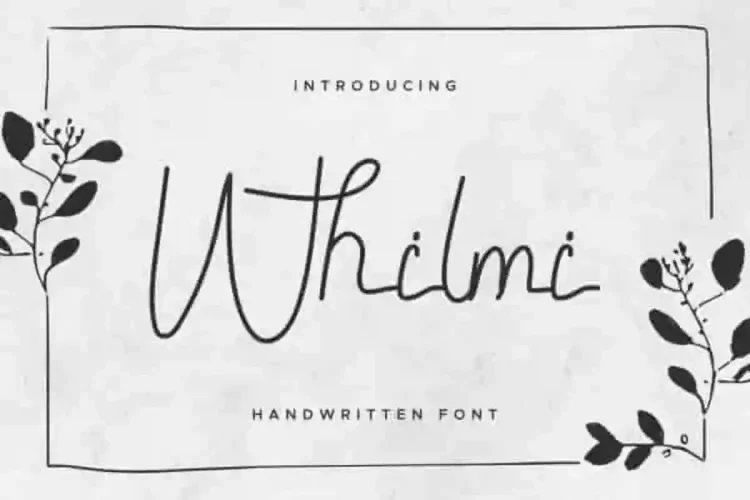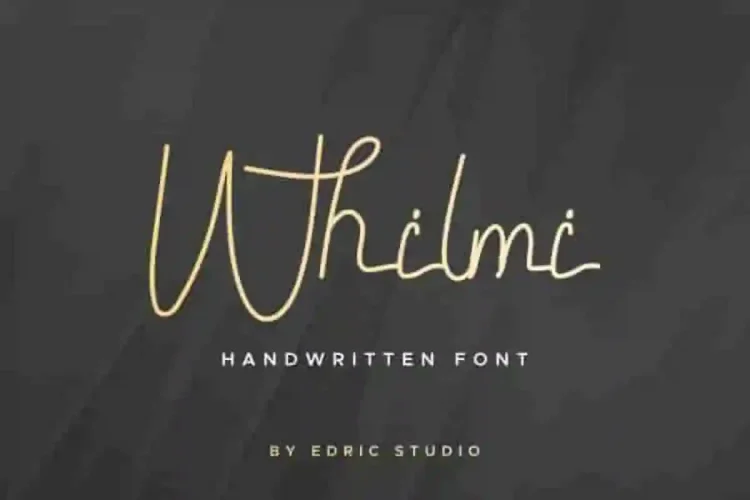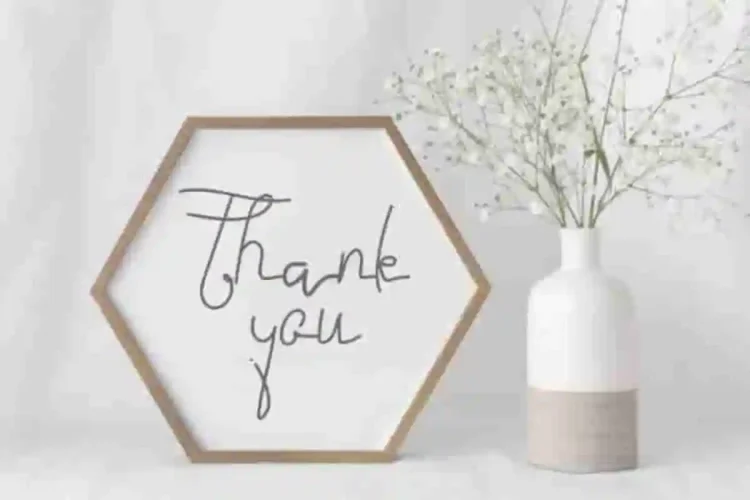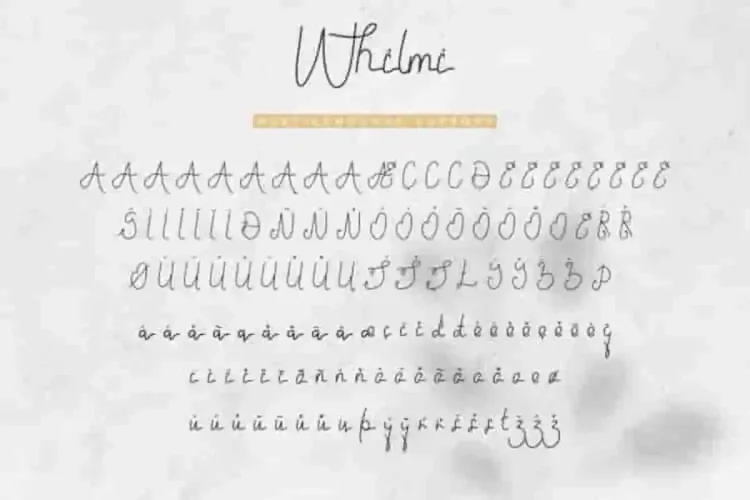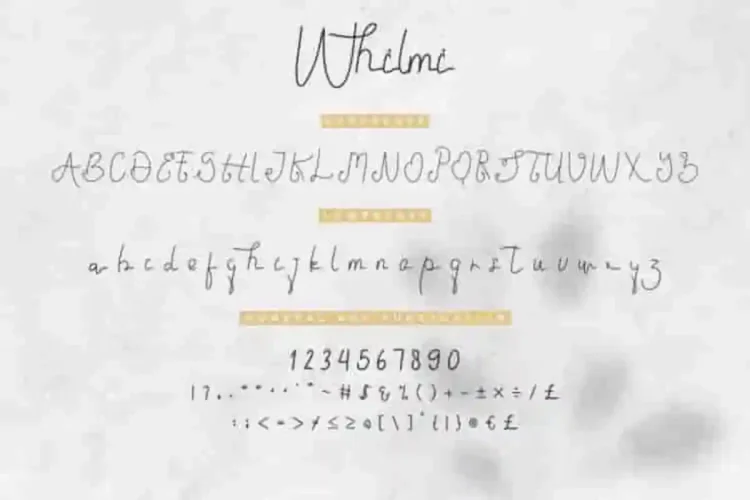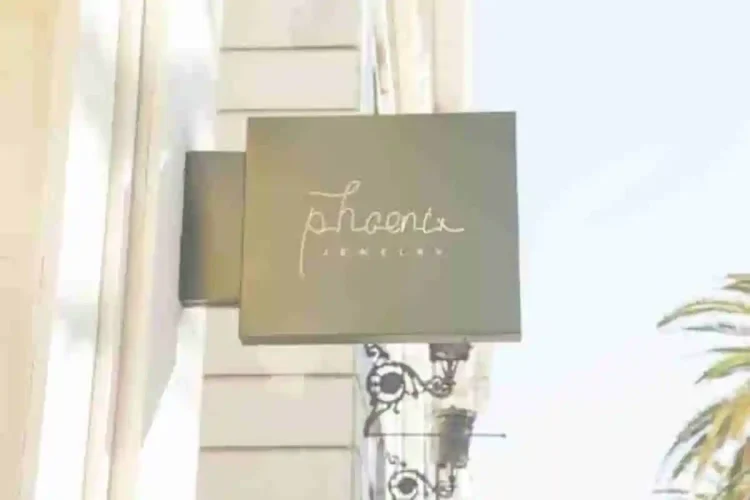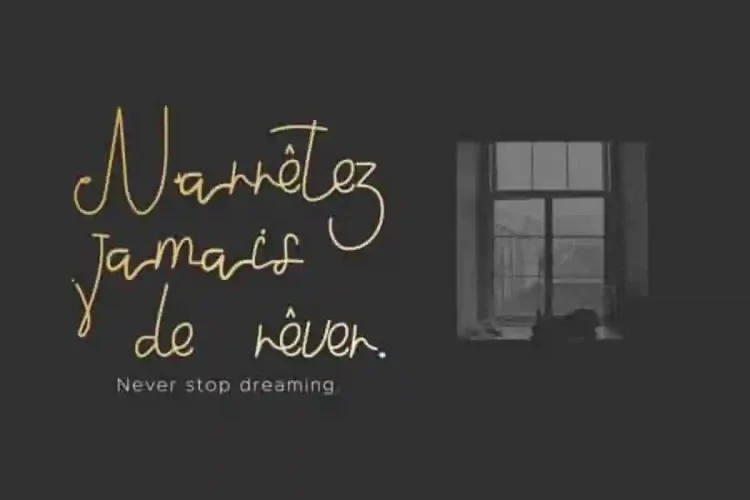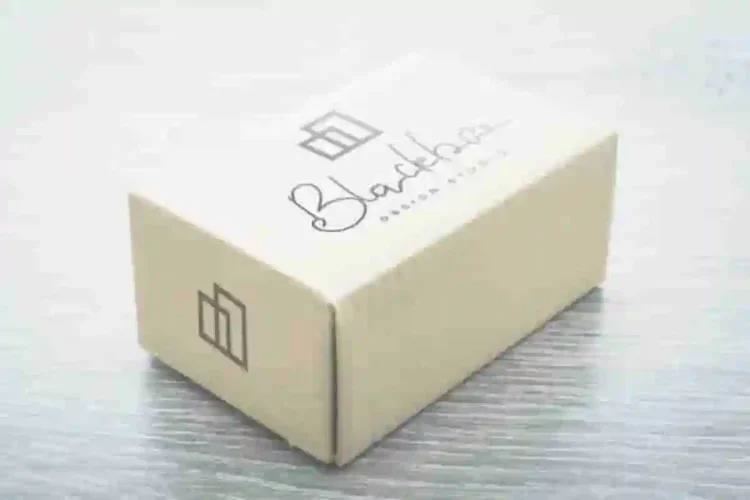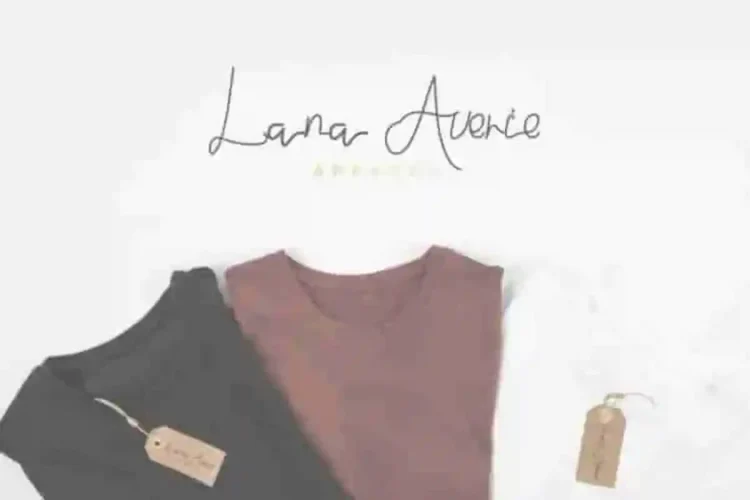
Whilmi Handwritten Calligraphy Font
Introducing! A new font by Edric Studio in 2020 : Whilmi Handwritten Font
Whilmi Handwritten Font is a unique font script , made by two letter artists : Saila and suci in Bandung and Garut, Indonesia.
Whilmi Handwritten Font has a stunning characters set, exclusively made for you :)
This is a new script decorative font with calligraphy style. The characters style of this typeface is the beautiful, vintage, classic, simple, natural and beautiful
Perfect for brandings, logo type, or any other graphic products: poster, flyer, signage, merchandise, leaflet etc. From branding, logos, posters, flyers, signage, merchandise, leaflets, to personal and professional projects, this font adapts beautifully.